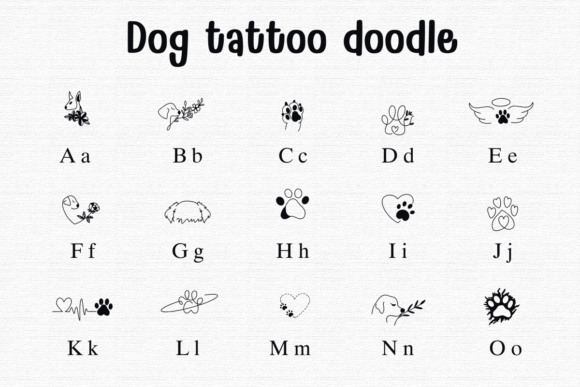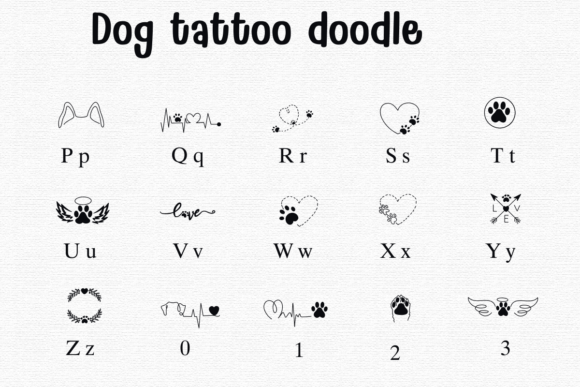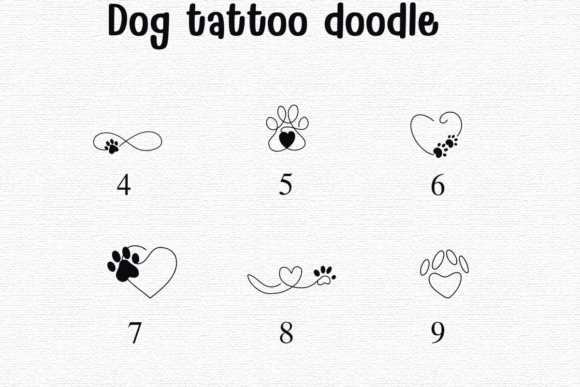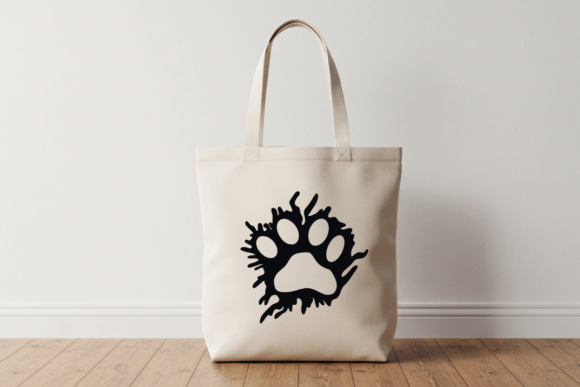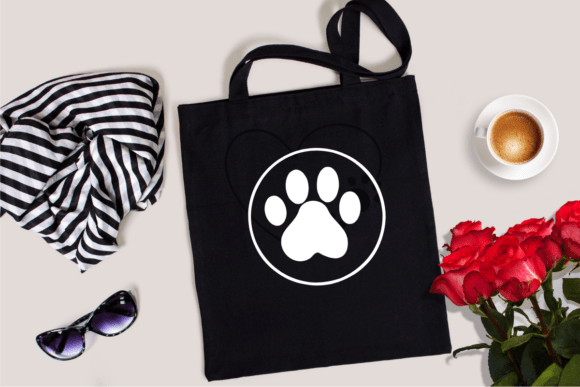
Unleash Your Creativity with Dog Tattoo Doodle Font
Are you a pet lover and a creative soul looking for a unique way to express your passion for dogs? Look no further than the Dog Tattoo Doodle Font, a charming dingbat font that is packed with designs inspired by dogs, paw prints, hearts, and love symbols. This delightful font is perfect for creating tattoos, pet-themed crafts, greeting cards, logos, and DIY projects that bring a personal and playful touch to any design.
What is Dog Tattoo Doodle Font?
Dog Tattoo Doodle Font is a dingbat font that features a collection of simple yet expressive doodle-style designs that are inspired by our furry friends. The font includes a wide range of symbols, from cute dog illustrations to paw prints, hearts, and love symbols. Each design is carefully crafted to be versatile and easy to use, making it perfect for creatives of all levels.
What Can I Use Dog Tattoo Doodle Font For?
The possibilities are endless with Dog Tattoo Doodle Font! Here are some ideas to get you started:
- Tattoos and Body Art: Create custom tattoos or temporary tattoos with a personal touch. The doodle-style designs are perfect for those who want a unique and playful tattoo.
- Pet-Themed Crafts: Add a personal touch to your pet-themed crafts, such as pet collars, leashes, or pet beds.
- Greeting Cards and Stationery: Create custom greeting cards, invitations, and stationery that are perfect for pet lovers.
- Logos and Branding: Use the font to create custom logos and branding materials for pet-related businesses.
- DIY Projects: Add a playful touch to your DIY projects, such as customized pet tags, pet houses, or garden decorations.
Why Choose Dog Tattoo Doodle Font?
Here are just a few reasons why Dog Tattoo Doodle Font is a must-have for pet lovers and creatives:
- Unique and Playful Designs: The font features unique and playful designs that are sure to add a personal touch to any project.
- Versatile: The font can be used for a wide range of projects, from tattoos to crafts to logos.
- Perfect for Pet Lovers: The font is perfect for pet lovers who want to add a personal touch to their designs.
Here are some tips and inspiration to help you get the most out of Dog Tattoo Doodle Font:
- Experiment with Different Colors: Try out different colors and color combinations to add a pop of color to your designs.
- Mix and Match Designs: Mix and match different designs to create unique and personalized designs.
- Add Your Own Touch: Add your own personal touch to your designs by incorporating your own illustrations or graphics.
Dog Tattoo Doodle Font is a charming dingbat font that is perfect for pet lovers and creatives alike. With its simple yet expressive doodle-style designs, it’s a must-have for anyone looking to add a personal and playful touch to their designs. Whether you’re creating tattoos, pet-themed crafts, greeting cards, logos, or DIY projects, this font is sure to inspire your creativity and bring a smile to your face.